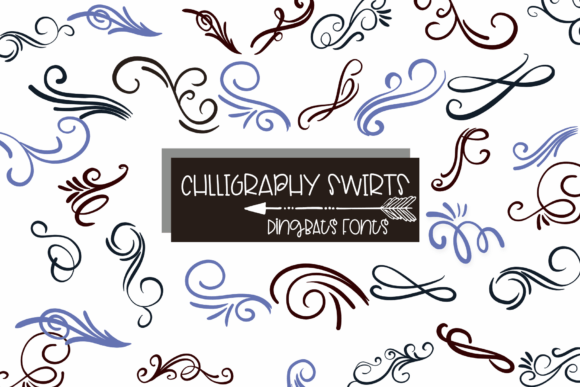
Calligraphy Swirls Font: Elevate Your Creative Projects with Elegant Sketched Style
Are you looking for a unique and creative way to add a personal touch to your projects? Look no further than the Calligraphy Swirls Font, a beautiful dingbats font with a sketched style that can elevate your designs to the next level. In this article, we’ll explore the features and benefits of this stunning font and provide you with inspiration and ideas on how to use it in your creative projects.
What is Calligraphy Swirls Font?
Calligraphy Swirls is a dingbats font that features intricate, hand-sketched swirls and flourishes. This font is perfect for adding a touch of elegance and sophistication to your designs. With its unique and artistic style, Calligraphy Swirls Font can help you create stunning visual content that stands out from the crowd.
Key Features of Calligraphy Swirls Font
- Sketched Style: Calligraphy Swirls Font features a beautiful, hand-sketched style that gives your designs a personal and artistic touch.
- Dingbats Font: This font is a dingbats font, which means it features decorative elements such as swirls, flourishes, and other ornaments.
- Elegant and Sophisticated: Calligraphy Swirls Font is perfect for creating elegant and sophisticated designs that are perfect for special occasions or high-end branding.
- Versatile: This font can be used in a variety of creative projects, from wedding invitations to DIY crafts, decorations, logos, and more.
Creative Ways to Use Calligraphy Swirls Font
Calligraphy Swirls Font is a versatile font that can be used in a variety of creative projects. Here are some ideas to get you started:
Wedding Invitations
Make your wedding invitations truly special with Calligraphy Swirls Font. This font is perfect for creating beautiful, elegant invitations that set the tone for your special day.
DIY Crafts
Calligraphy Swirls Font is perfect for DIY crafts, such as handmade cards, gift tags, and other paper crafts. Add a personal touch to your crafts with this beautiful font.
Decorations
Use Calligraphy Swirls Font to create beautiful decorations for your home or event. This font can be used to create stunning wall art, garlands, and other decorative elements.
Logos and Branding
Calligraphy Swirls Font can also be used in logos and branding. This font is perfect for creating elegant and sophisticated logos that help your brand stand out.
Tips and Tricks for Using Calligraphy Swirls Font
Here are some tips and tricks for using Calligraphy Swirls Font in your creative projects:
Combine with Other Fonts
Calligraphy Swirls Font can be combined with other fonts to create stunning visual content. Try pairing it with a simple sans-serif font for a beautiful contrast.
Experiment with Colors
Don’t be afraid to experiment with different colors when using Calligraphy Swirls Font. This font looks beautiful in a variety of colors, from metallic gold to soft pastels.
Use in Combination with Images
Calligraphy Swirls Font can be used in combination with images to create stunning visual content. Try using it to add a caption or quote to a beautiful image.
Calligraphy Swirls Font is a beautiful dingbats font with a sketched style that can elevate your creative projects to the next level. With its elegant and sophisticated style, this font is perfect for a variety of creative projects, from wedding invitations to DIY crafts, decorations, logos, and more. By following the tips and tricks outlined in this article, you can create stunning visual content that showcases your creativity and style.